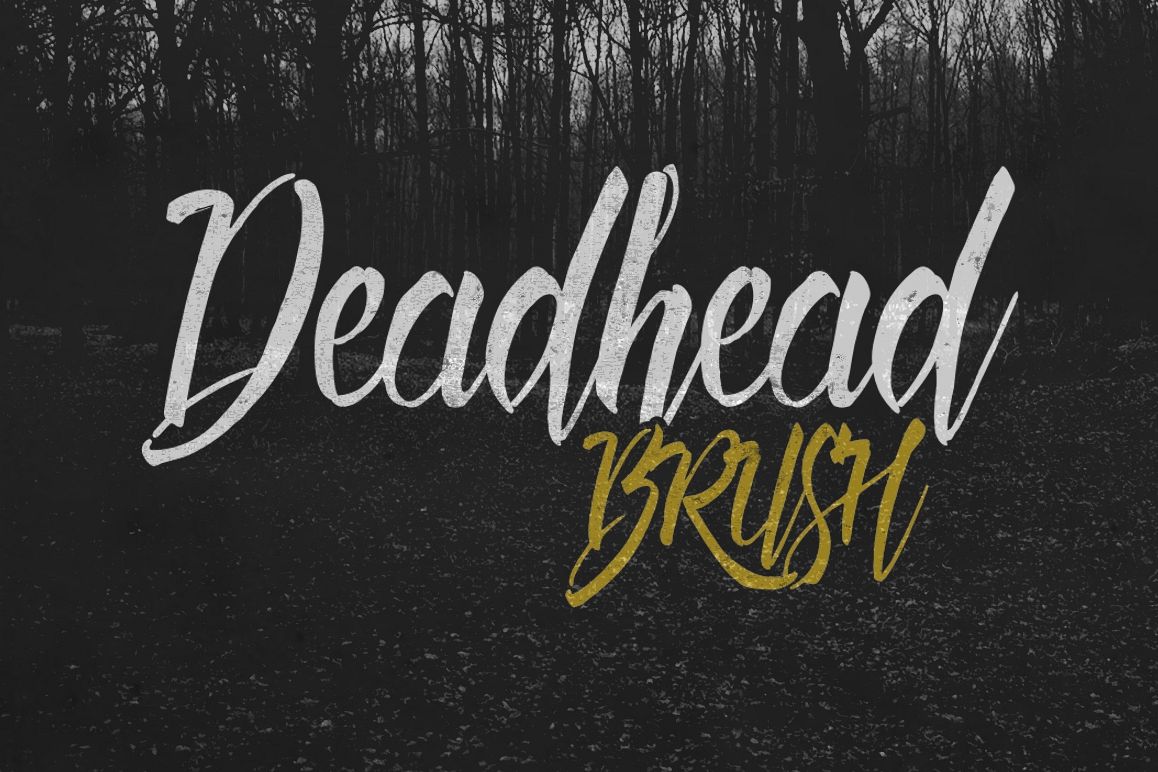
Deadhead Brush
is a script typeface that is crafted from a hand-lettering using a
traditional paint brush. Its rough and jaggy edges gives you natural
feeling of a brush lettering. Suits best for logotypes, (any kind of)
invitations, typography / quote writings, t-shirt designs, etc.